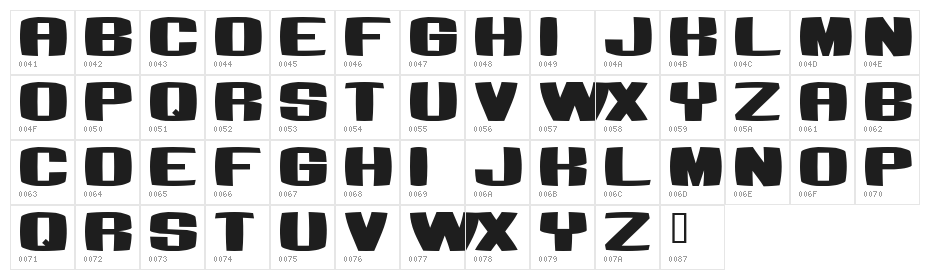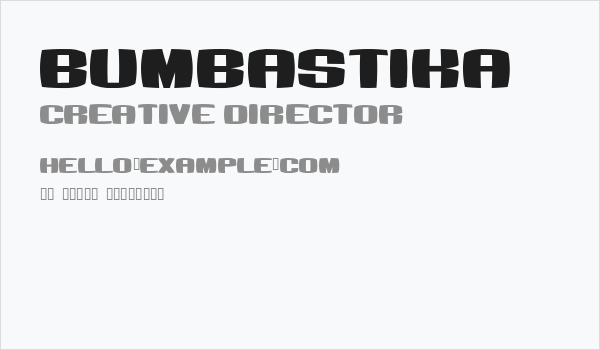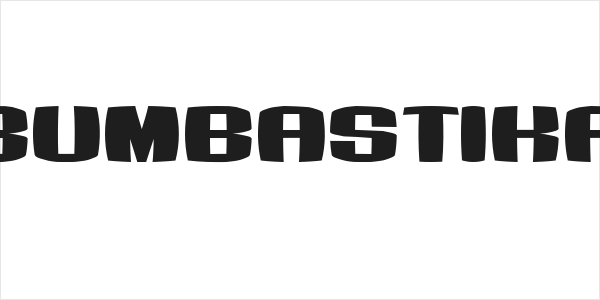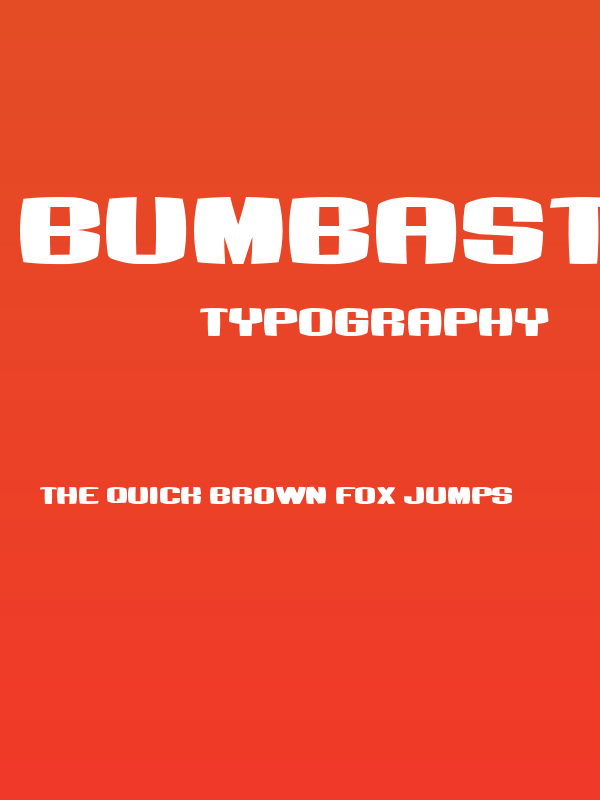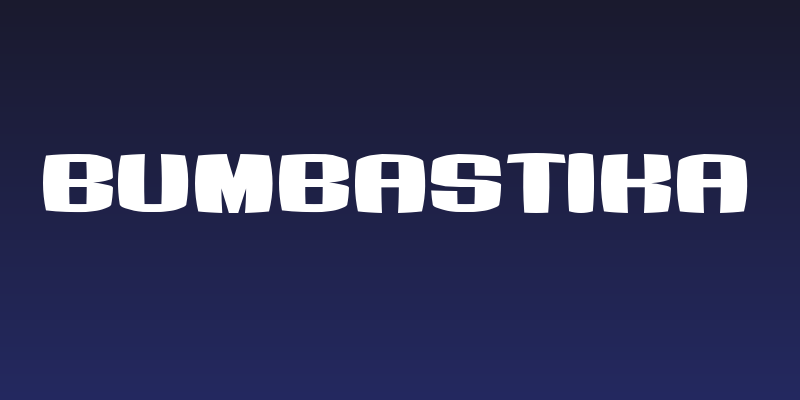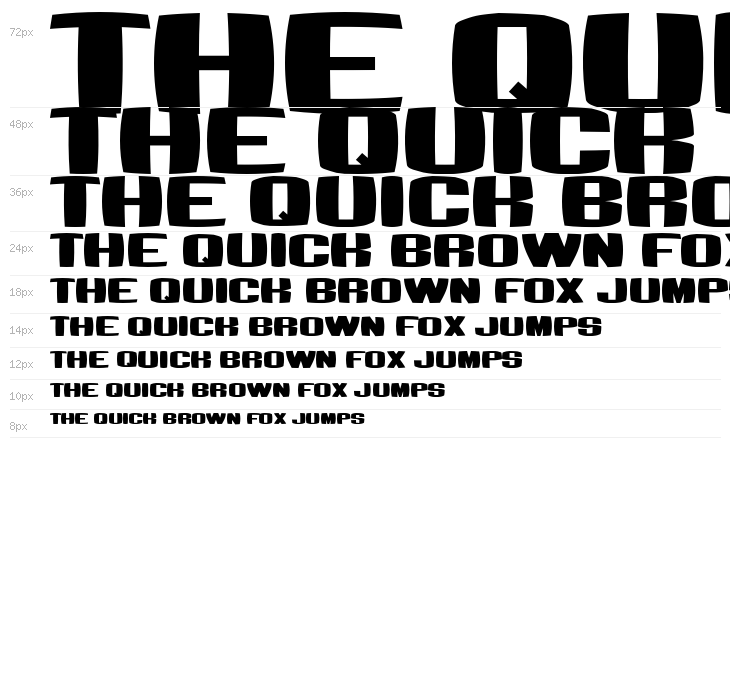
Bumbastika Font
Bumbastika Description
This font features bold, blocky characters with a strong, impactful presence. The uppercase letters are particularly wide and have a slightly condensed appearance, giving them a robust and sturdy look. The strokes are thick and uniform, contributing to a high contrast between the characters and the background. The overall style is modern and somewhat aggressive, making it suitable for attention-grabbing headlines or branding. The font lacks lowercase letters and numerals, focusing solely on uppercase characters, which enhances its bold and assertive nature.
Proposed ProjectsIdeal for headlines, posters, branding, and any project requiring a strong visual impact.